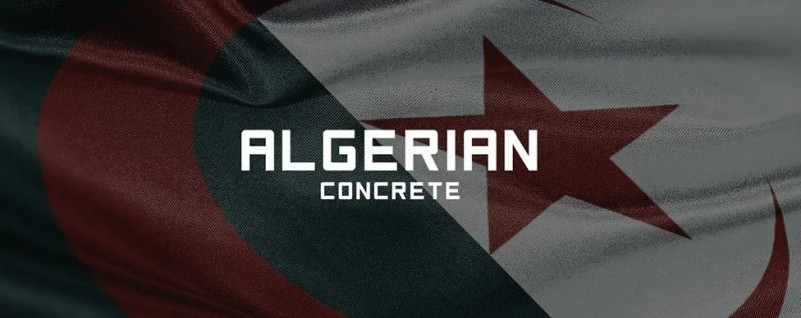
Algerian Concrete Font
Introducing New Fonts, A wonderful collection for your various special projects. Algerian Concrete Font is a free bold sans serif display font, and is inspired by vintage desert. This font is very suitable as a display font as well as a font for book cover, because it has a high readability. Algerian Concrete perfect for making logo designs, badges, packaging, posters, t-shirt designs and more.